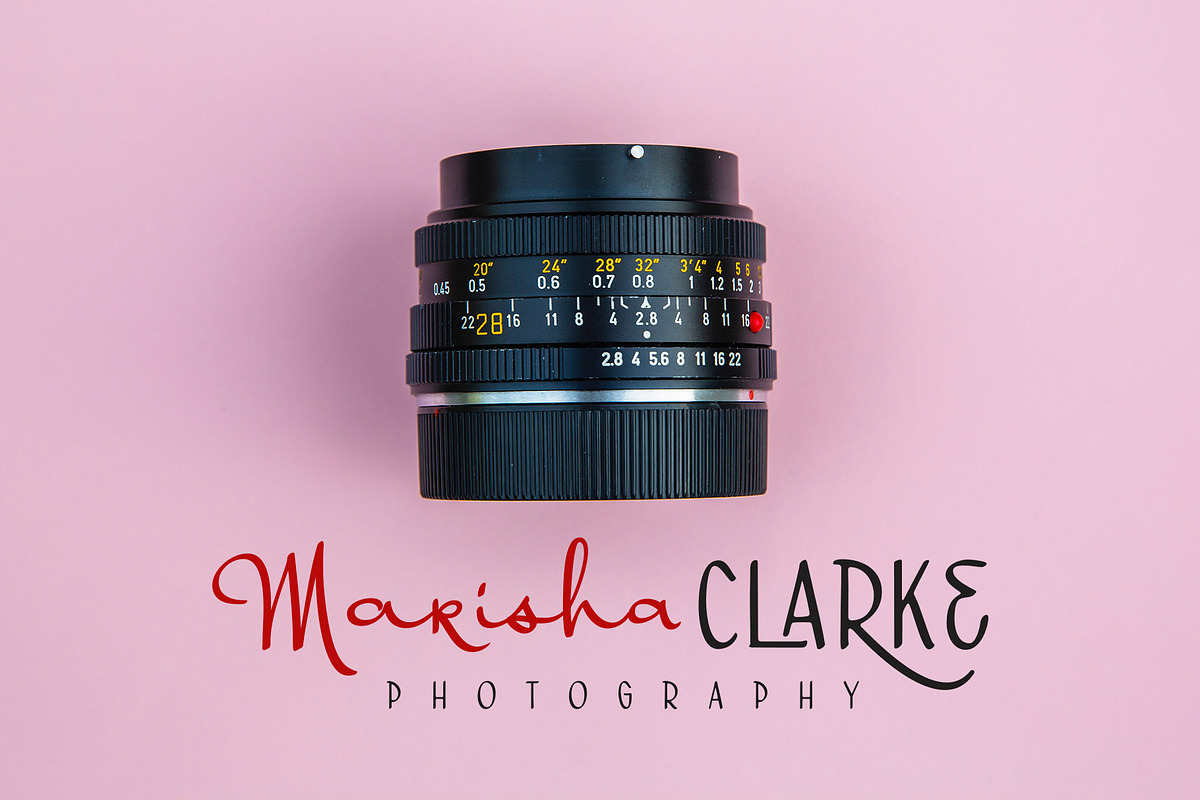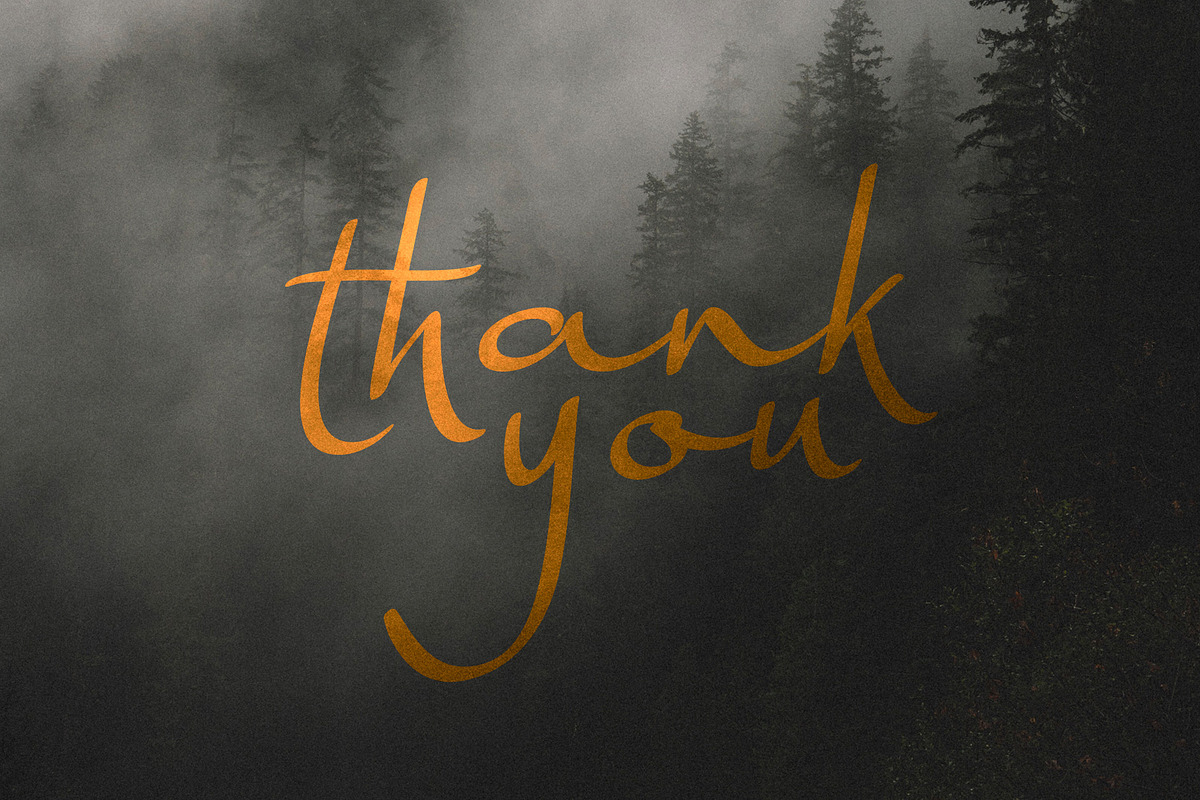
Harmona
Harmona Font comes from a romantic feeling and a strong desire to unite in harmony. Harmona Script presents a simple yet beautiful and elegant typeface while still prioritizing readability on various sizes and media. For those of you who love signature fonts, this font is suitable for you to capture beautiful poems and quotes, invitation design, posters, logotype etc.
To complement Harmona Script, we also provide Harmona Sans with a classic yet luxurious touch to make it easier for you to combine the design into a more fun and attractive.